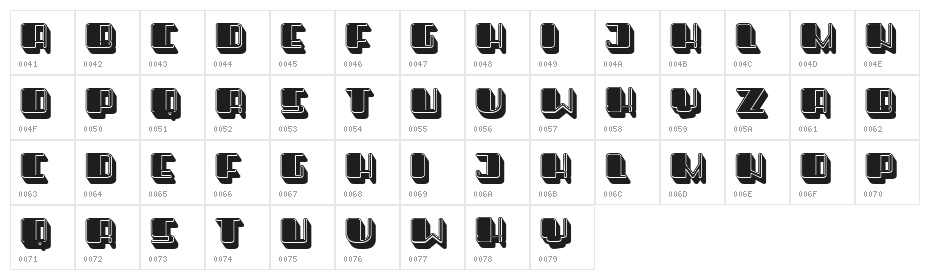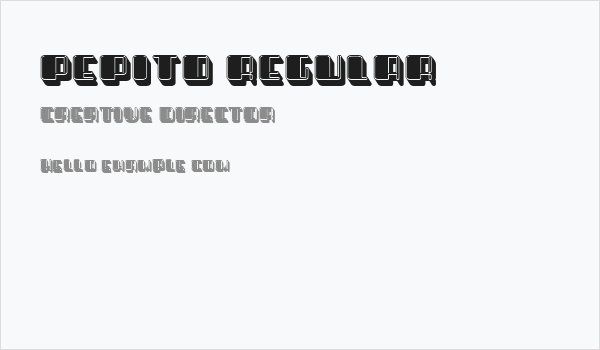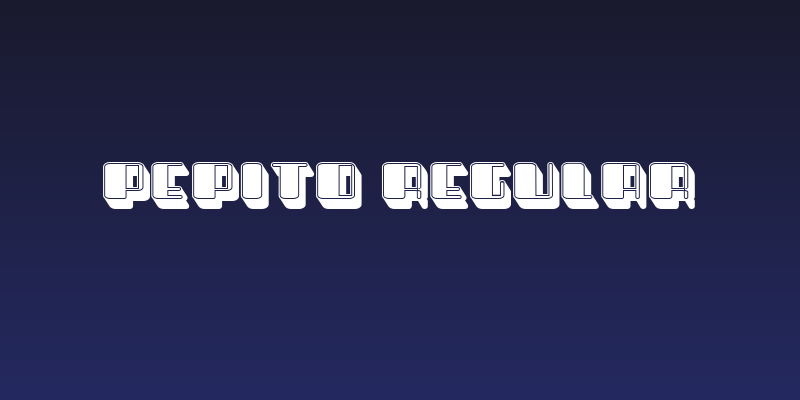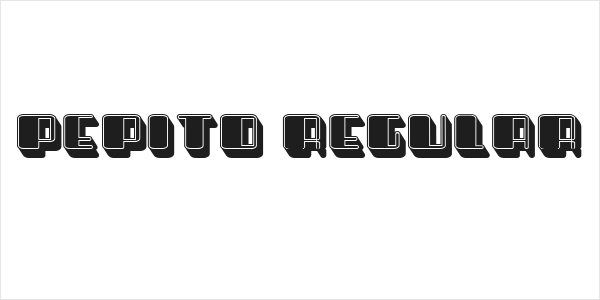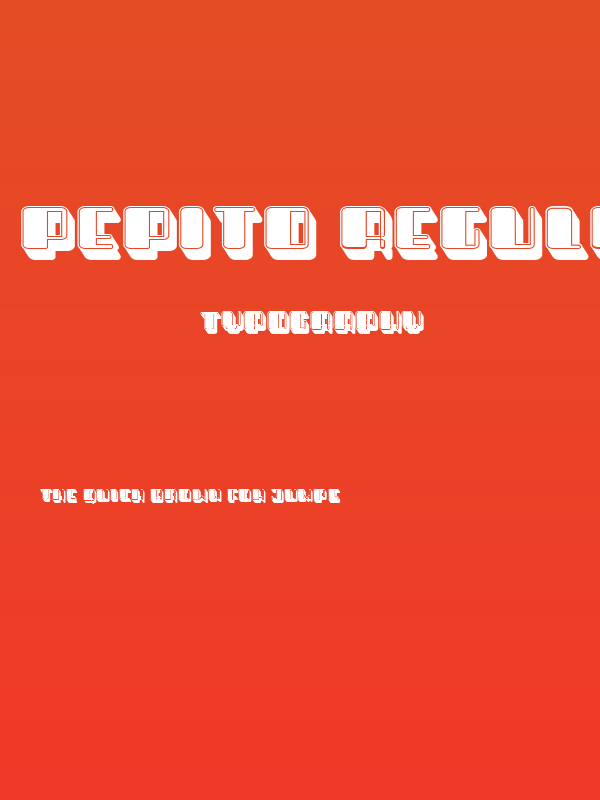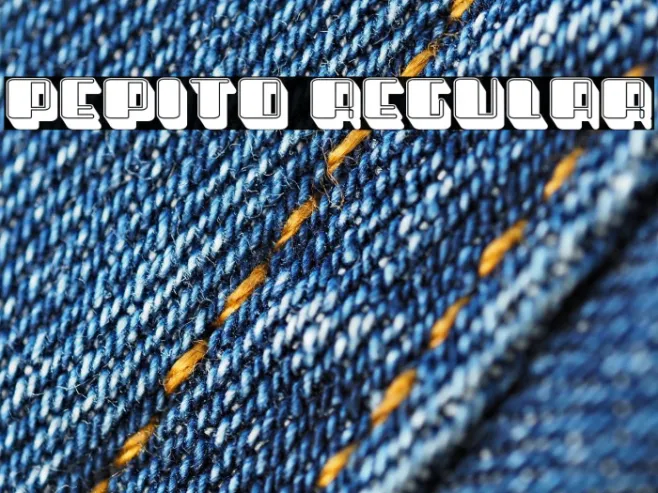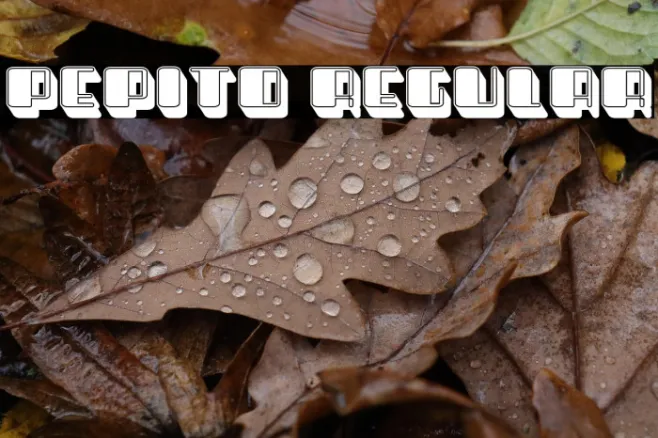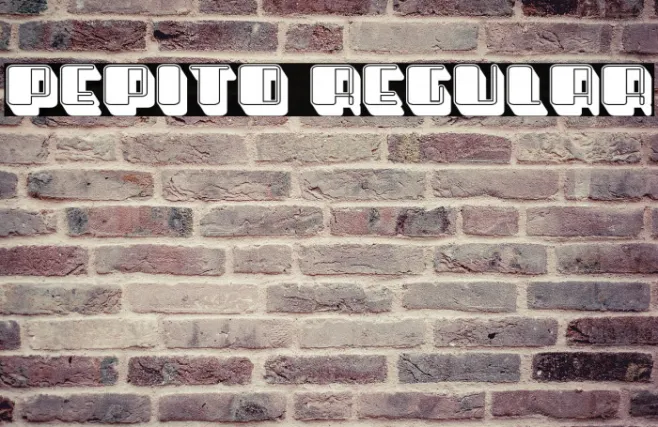
Pepito Regular Font
Pepito Regular Description
This font features a bold and striking design with a three-dimensional effect. The characters are outlined with a thick black border, giving them a shadowed appearance that adds depth and dimension. The letters are uppercase and have a geometric, blocky style, which makes them stand out prominently. The font is highly decorative, with a modern twist that combines elements of retro and futuristic design. The spacing between characters is tight, enhancing the compact and cohesive look of the text. This font is ideal for making a strong visual impact in headlines, posters, and logos.